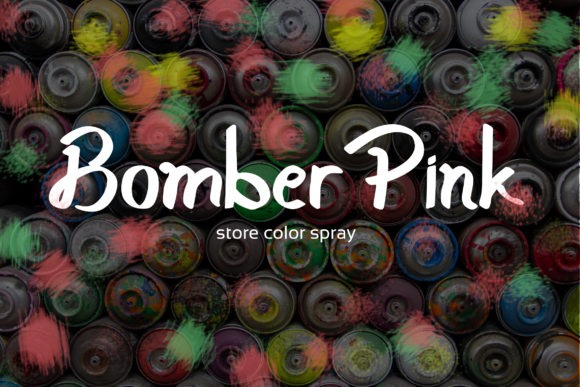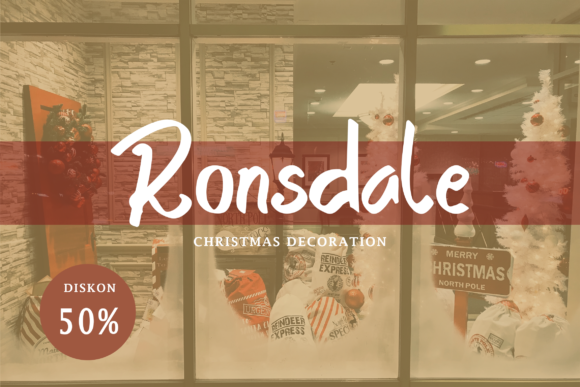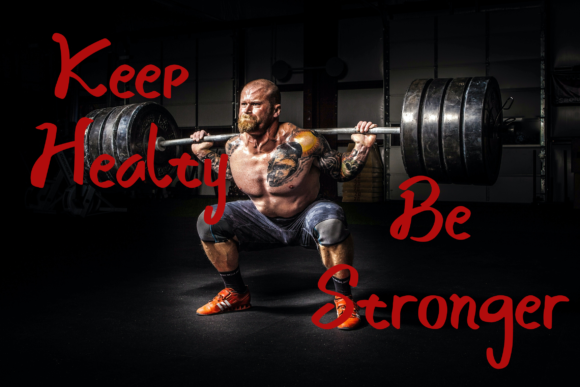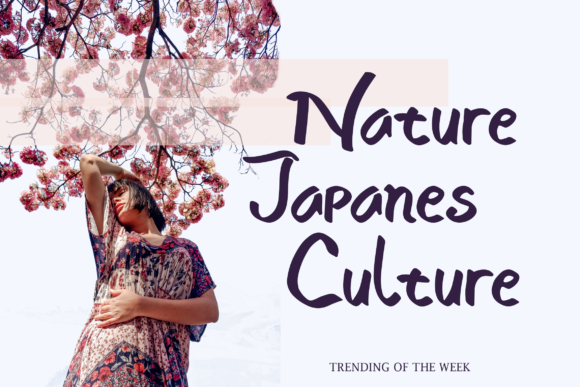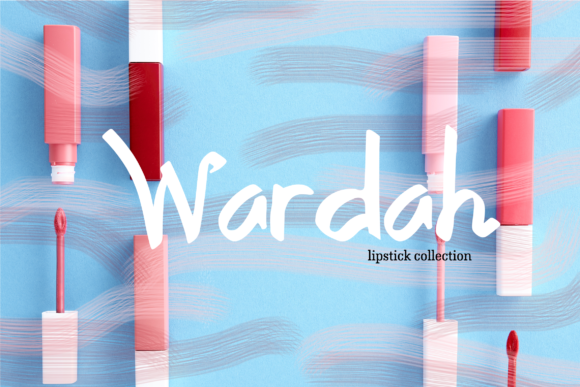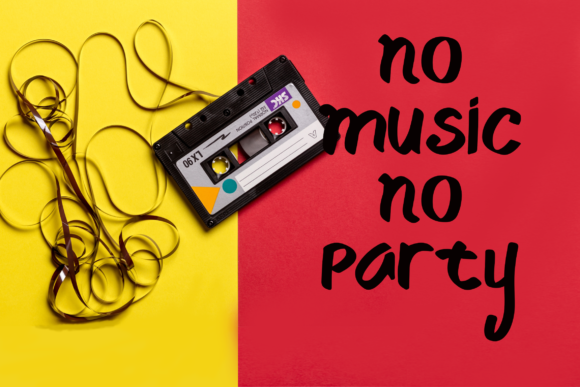
Introduction to Nadiva Font
Have you ever found yourself in the middle of a creative project, staring at a blank canvas, and suddenly, a spark of inspiration hits? The ideas start flowing, and your imagination runs wild. For designers, moments like these are what make all the hard work worth it. One such spark can be ignited by the right font, and that’s exactly what Nadiva Font has to offer.
Nadiva Font results from a beautiful marriage of a brush pen and pencil, creating a unique display font that exudes charm and authenticity. Its endearing look makes it a valuable addition to any designer’s toolkit. Whether you’re working on a high-quality design project or simply want to add a personal touch to your DIY crafts, Nadiva Font is a must-have resource.
Nadiva Font
- Perfect design resource for those looking for a distinctive and elegant font to enhance their creative projects.
- Easy to use and customize, with a wide range of applications in branding, advertising, and editorial design.
Honest Review: Nadiva Font
I recently stumbled upon the Nadiva Font, a free download that caught my attention. As a designer, I’m always on the lookout for high quality design resources to enhance my creative projects.
The Nadiva Font is a modern script font that shines with its elegant and refined feel. It’s perfect for creating beautiful titles, headings, and even full-body text. ✨
- Perfect for a variety of design projects, from wedding invitations to branding materials
- Works well in both digital and print formats
- Easy to customize and pair with other fonts
One of the standout features of the Nadiva Font is its transparent background, making it a great addition to any design project. ✨
However, I did notice a few limitations. The font’s consistency can be a bit inconsistent in certain situations, which can be a bit frustrating. ⚠️
Overall, I’d say the Nadiva Font is a great addition to any designer’s toolkit. It’s a high-quality, free download that can add a touch of elegance to any creative project. While it’s not perfect, its strengths far outweigh its weaknesses.
Nadiva Font is a versatile design resource that can be used in a variety of creative projects, such as logo design, branding, and typography-based art. Its transparent background makes it easy to use on any design background, and its high-quality design ensures that it will look great in any context.
Tips for Getting the Most Out of Nadiva Font